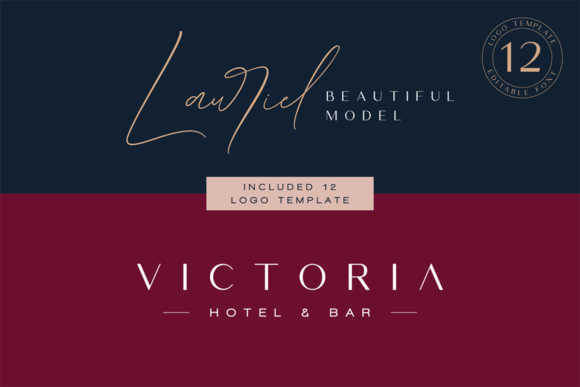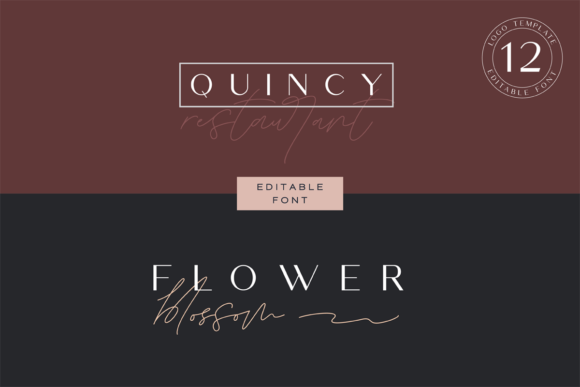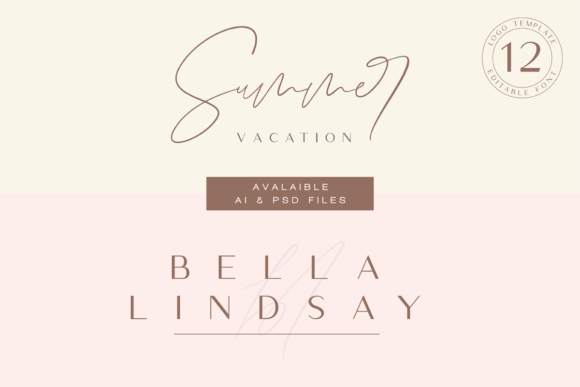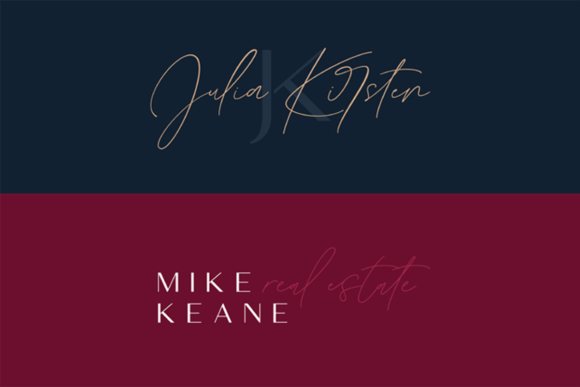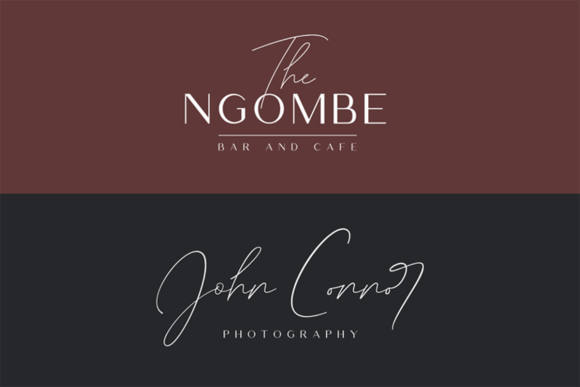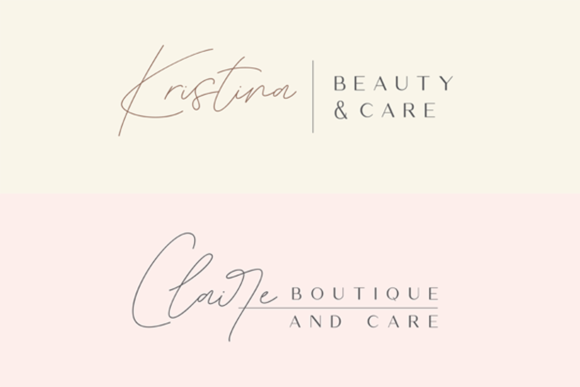
Introducing the Germany Duo Font: Elevate Your Designs with Luxury and Sophistication
Are you tired of using the same old fonts in your designs? Look no further! The Germany Duo Font is here to revolutionize your typography game. This luxurious font duo is specifically designed to provide a classy, contemporary touch to your projects. In this article, we’ll dive into the features and benefits of the Germany Duo Font and explore how it can elevate your designs to the next level.
A Classy, Contemporary Pair of Script and Serif Fonts
The Germany Duo Font is a thoughtfully crafted pair of script and serif fonts that work harmoniously together to create stunning typographic combinations. The duo includes:
- A clean, free-flowing script font that’s perfect for adding a touch of elegance to your designs.
- A classy, high contrast sans font containing uppercase characters only, ideal for headlines and titles.
- A ligatures version for added versatility and creative freedom.
- An amazing monoline version for a modern, minimalist look.
The Germany Duo Font is incredibly versatile and can be used for a wide range of design projects, including:
- Logos & branding: Create a lasting impression with a unique and memorable logo.
- Wedding designs: Add a touch of sophistication to your wedding invitations, programs, and decor.
- Social media posts: Elevate your social media game with stylish and eye-catching posts.
- Advertisements & product designs: Stand out from the crowd with beautiful typography.
Beautiful Typographic Harmony
One of the standout features of the Germany Duo Font is its ability to create beautiful typographic harmony. The script and serif fonts work seamlessly together to produce stunning combinations that will take your designs to the next level. Whether you’re a seasoned designer or a crafty DIY enthusiast, the Germany Duo Font is sure to inspire your creativity.
12 Editable Logo Templates Included
To help you get started with your design projects, the Germany Duo Font comes with a set of 12 editable logo templates. Each template uniquely combines the two Germany fonts to create striking, modern logo designs that you can edit and use as your own. These templates are perfect for:
- Customizing to fit your brand’s identity.
- Using as a starting point for your own design projects.
- Saving time and effort in your design process.
Why Choose the Germany Duo Font?
So, why should you choose the Germany Duo Font for your design projects? Here are just a few reasons:
- Unique and luxurious design that’s sure to stand out.
- High-quality fonts that are optimized for use in a variety of design projects.
- Included logo templates to save you time and effort.
- Exceptional value for the quality and versatility provided.
In conclusion, the Germany Duo Font is a game-changing font duo that’s perfect for designers and crafters looking to elevate their designs with luxury and sophistication. With its classy, contemporary pair of script and serif fonts, endless design possibilities, and included logo templates, this font duo is sure to inspire your creativity and take your designs to the next level. So why wait? Get your hands on the Germany Duo Font today and start creating stunning designs that will leave a lasting impression!